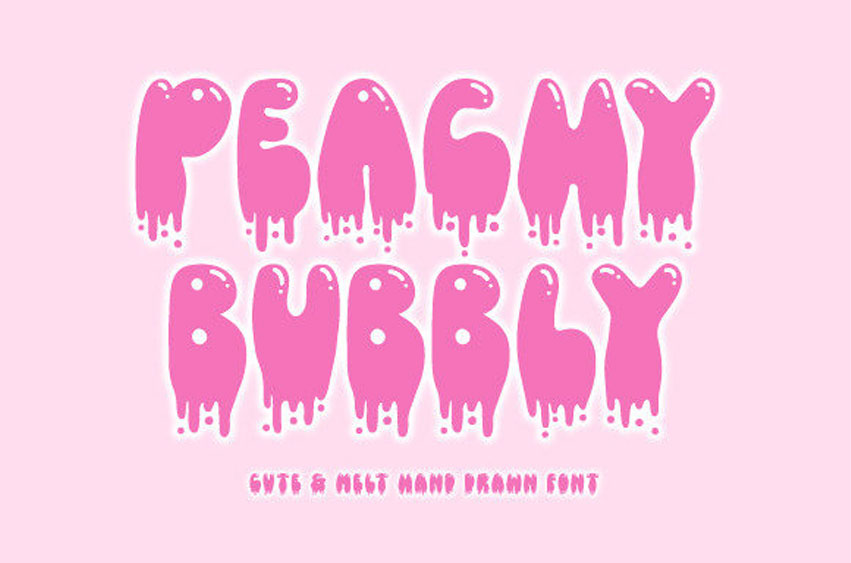
Peachy Bubbly Font
Peachy Bubbly Font is a hand-drawn font with chubby, playful, and melting characters.
There are two styles, namely regular and shine to make it easier to design. It is very suitable for use in cover design, merchandise, or branding.